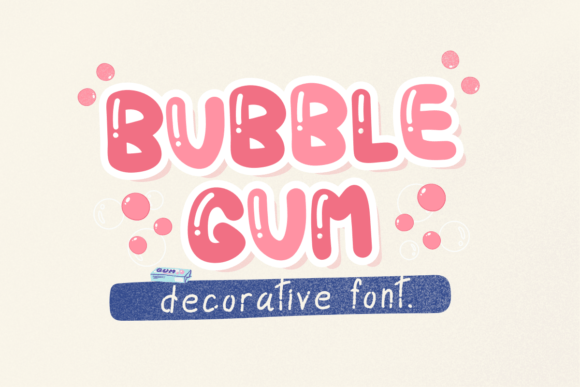
Bubble Gum Font: Add a Joyful Touch to Your Designs
Bubble Gum Font is a delightful and quirky decorative font that can instantly elevate your designs with its playful charm. This beautiful display font is perfect for adding a joyful touch to your creative projects, making them stand out from the crowd. In this article, we’ll explore the features and benefits of Bubble Gum Font, and how you can use it to take your designs to the next level.
What is Bubble Gum Font?
Bubble Gum Font is a type of decorative font that is designed to resemble the playful and fun nature of bubble gum. Its unique and quirky design makes it perfect for use in a variety of creative projects, from posters and flyers to social media graphics and website headers.
- Unique and Quirky Design: Bubble Gum Font features a distinctive design that is sure to grab attention and add a playful touch to your designs.
- Decorative and Fun: This font is perfect for use in decorative projects where you want to add a fun and lighthearted touch.
- Easy to Read: Despite its playful design, Bubble Gum Font is easy to read and understand, making it perfect for use in a variety of applications.
Benefits of Using Bubble Gum Font
There are many benefits to using Bubble Gum Font in your designs. Here are just a few:
- Adds a Joyful Touch: Bubble Gum Font is designed to add a playful and joyful touch to your designs, making them more engaging and fun to look at.
- Perfect for Kids and Adults Alike: The playful design of Bubble Gum Font makes it perfect for use in projects aimed at kids, as well as adults who appreciate a fun and quirky touch.
- Versatile: Bubble Gum Font can be used in a wide range of creative projects, from posters and flyers to social media graphics and website headers.
How to Use Bubble Gum Font
Bubble Gum Font is easy to use and can be incorporated into a wide range of creative projects. Here are a few ideas to get you started:
- Posters and Flyers: Use Bubble Gum Font to create eye-catching posters and flyers that are sure to grab attention.
- Social Media Graphics: Add a playful touch to your social media graphics with Bubble Gum Font, making them more engaging and fun to look at.
- Website Headers: Use Bubble Gum Font to create unique and playful website headers that reflect the personality of your brand.
- Party Invitations: Create fun and playful party invitations with Bubble Gum Font that are sure to get your guests excited.
Pairing Bubble Gum Font with Other Fonts
Pairing Bubble Gum Font with other fonts can help to create a unique and visually appealing design. Here are a few font pairing ideas to try:
- Pair with a Serif Font: Pairing Bubble Gum Font with a serif font can help to create a nice contrast and add a touch of sophistication to your design.
- Pair with a Script Font: Pairing Bubble Gum Font with a script font can help to create a playful and whimsical design that’s perfect for use in creative projects.
- Pair with a Bold Font: Pairing Bubble Gum Font with a bold font can help to create a striking and eye-catching design that’s sure to grab attention.
Tips for Using Bubble Gum Font
Here are a few tips to keep in mind when using Bubble Gum Font:
- Use it Sparingly: While Bubble Gum Font is playful and fun, it can be overwhelming if used too much. Use it sparingly to add a touch of whimsy to your design.
- Experiment with Colors: Bubble Gum Font looks great in a variety of colors, so don’t be afraid to experiment and find the perfect color to match your brand.
- Consider your Audience: While Bubble Gum Font is perfect for use in projects aimed at kids, it may not be suitable for use in more formal or professional projects.
Bubble Gum Font is a fun and playful decorative font that’s perfect for adding a joyful touch to your designs. With its unique and quirky design, it’s sure to grab attention and make your projects stand out. Whether you’re a designer, artist, or DIY enthusiast, Bubble Gum Font is a great addition to your font collection.